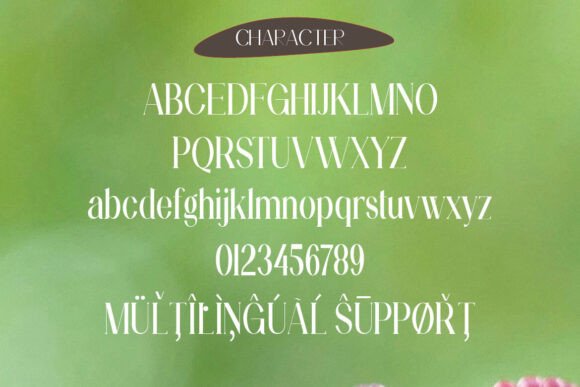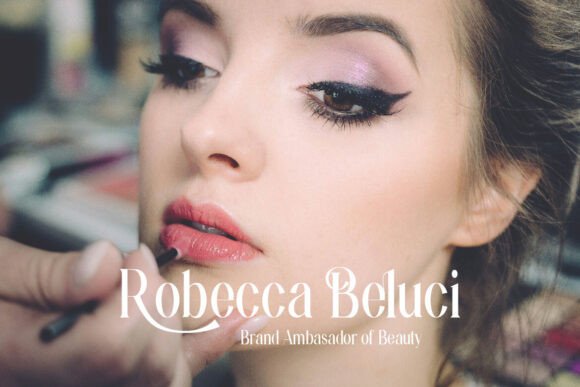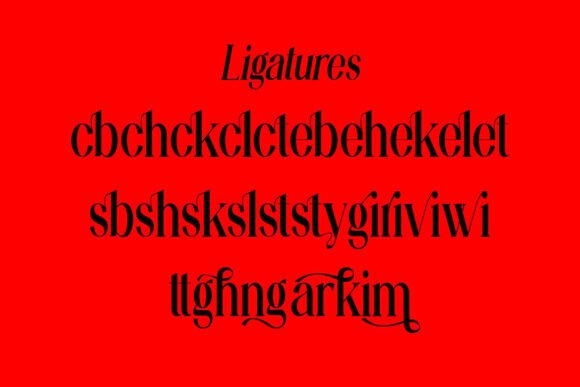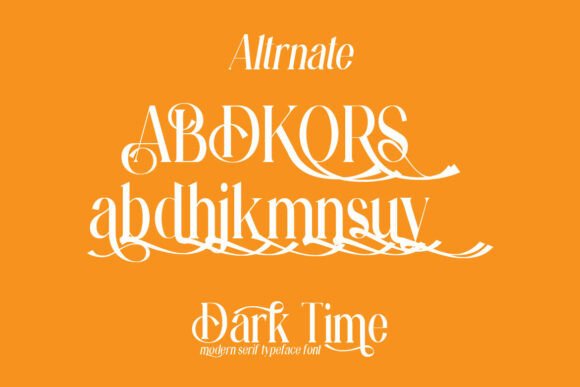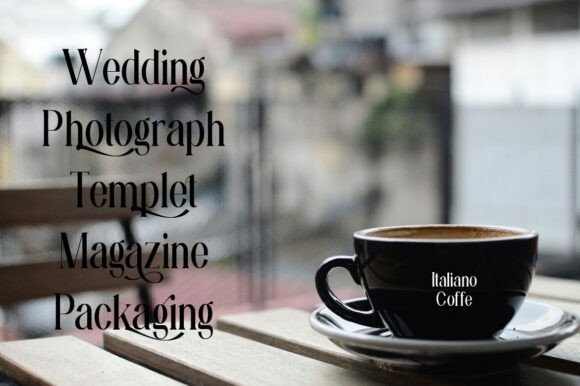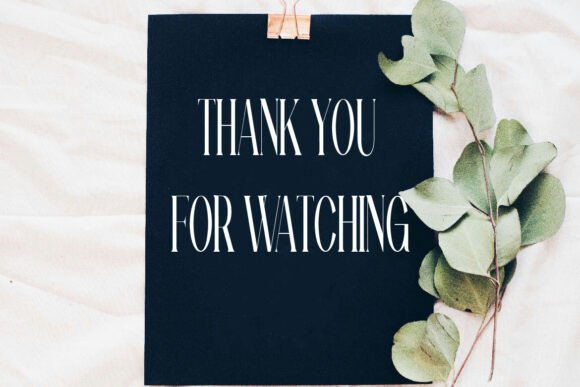
Discover the Elegance of Dark Time Font: Elevate Your Designs with Power and Grace
In the realm of typography, a well-chosen font can make all the difference in elevating your designs from ordinary to extraordinary. For designers and crafters seeking a typeface that embodies both power and elegance, Dark Time font is an exceptional choice. This contemporary serif typeface is meticulously crafted to bring a balanced blend of robust character and delicate artistry to your creative projects, allowing you to leave a lasting, sophisticated impression.
The Essence of Dark Time Font
Dark Time font is not just a typeface; it’s a statement of style and refinement. Its design is rooted in the perfect fusion of modernity and classic allure, making it an ideal choice for those who wish to steep their designs in contemporary elegance without losing touch with timeless sophistication. Each stroke and curve in Dark Time is carefully considered to provide a sense of power, grace, and balance, making it versatile for a wide range of applications.
Key Features of Dark Time Font
- Contemporary Serif Typeface: Dark Time boasts a modern serif design that sets it apart from traditional typefaces. Its serifs add a touch of sophistication and elegance, making it perfect for high-end designs.
- Balanced Character: The font strikes a perfect balance between robustness and delicacy. This balance ensures that your designs exude strength and confidence without compromising on elegance.
- Elegant and Sophisticated: Dark Time is designed to add an air of sophistication to your designs. Whether you’re working on a luxury brand project, a high-end product catalog, or an elegant wedding invitation, this font is sure to impress.
- Versatility: One of the standout features of Dark Time font is its versatility. It can be used across various design projects, from digital platforms like websites and mobile apps to print materials such as brochures, posters, and business cards.
Applications of Dark Time Font
The versatility of Dark Time font makes it suitable for a myriad of design applications. Here are some of the areas where Dark Time truly shines:
- Branding and Logotypes: For brands looking to make a statement with their logo or brand identity, Dark Time offers the perfect blend of modernity and elegance.
- Web Design: In the digital realm, typography plays a crucial role in user experience. Dark Time font can add a level of sophistication to website designs, making them more engaging and professional.
- Print Design: From luxury product catalogs to elegant wedding invitations, Dark Time brings a touch of class and refinement to any print material.
- Packaging Design: For products that demand a high-end feel, such as cosmetics, jewelry, or premium foods, Dark Time font can elevate the packaging design to new heights of elegance.
Why Choose Dark Time Font?
In a world where design trends are constantly evolving, Dark Time font stands out as a timeless choice. Here are a few reasons why designers and crafters are gravitating towards this elegant typeface:
- Unique yet Legible: Dark Time offers a unique design that doesn’t compromise on legibility. This makes it perfect for body text as well as headlines.
- Ease of Use: Dark Time font is easy to integrate into various design tools and software, making the design process smooth and efficient.
Dark Time font is a powerful tool in the arsenal of designers and crafters looking to infuse their projects with elegance, power, and sophistication. Its contemporary serif design, balanced character, and versatile nature make it an excellent choice for a wide range of applications. By choosing Dark Time, you’re not just selecting a font; you’re embracing a statement of style and refinement that can elevate your designs to new heights. So, immerse yourself in the elegance of Dark Time font and make every stroke the signature of your creativity.